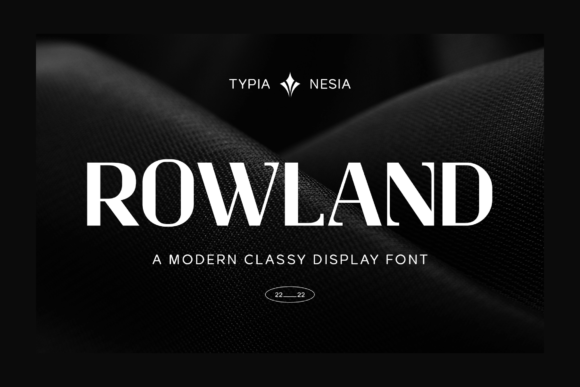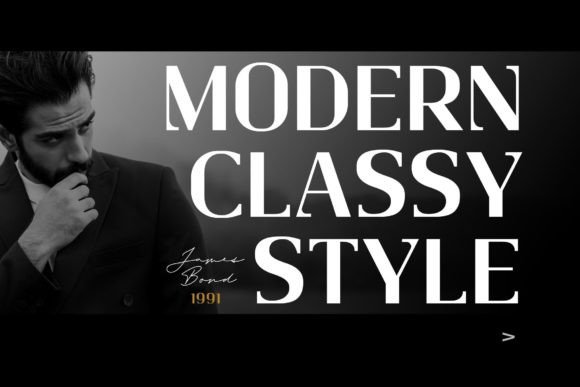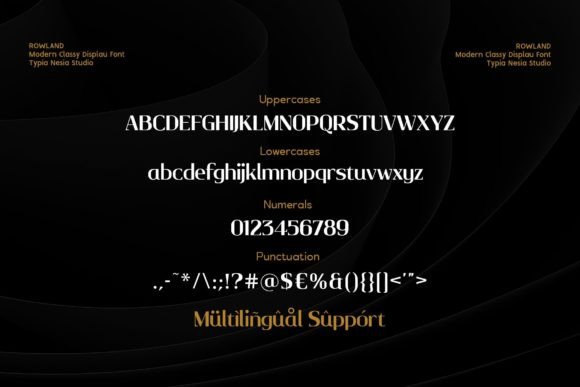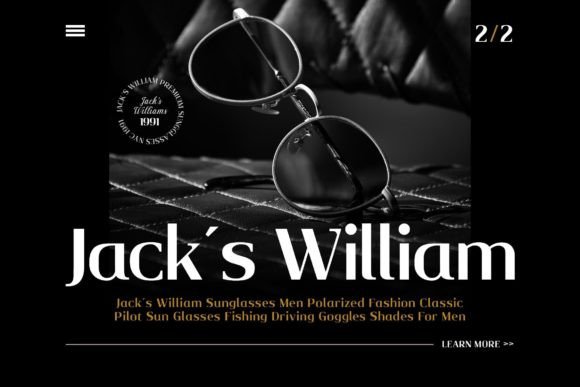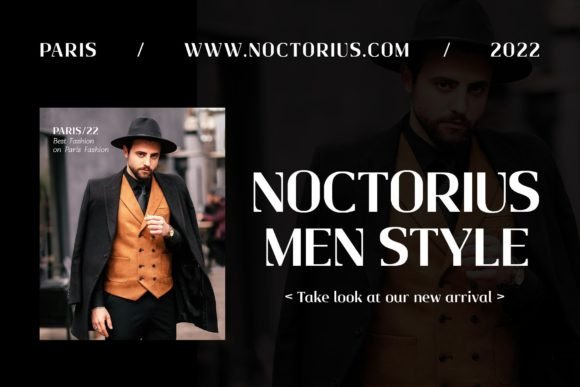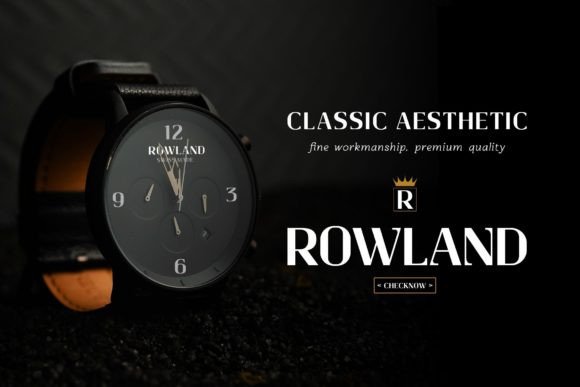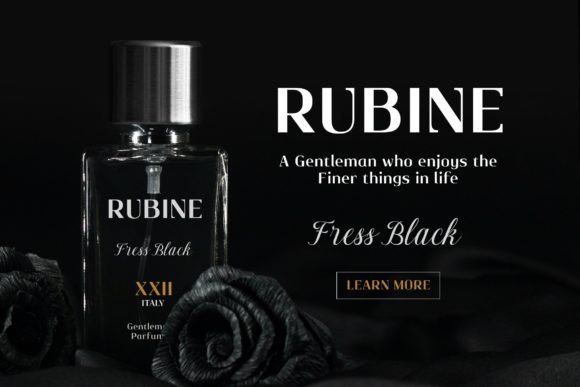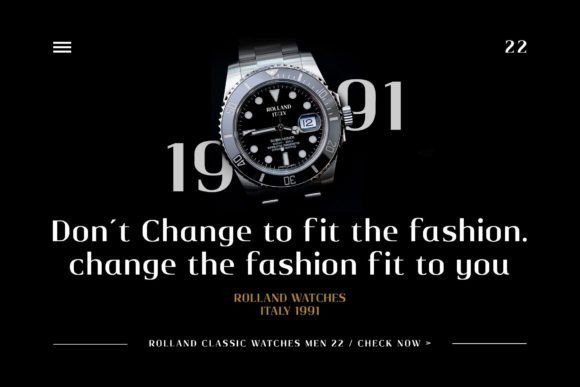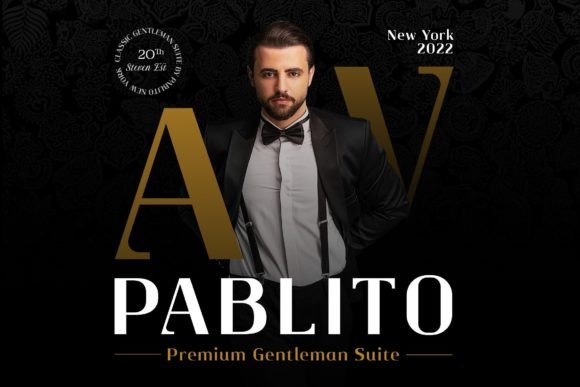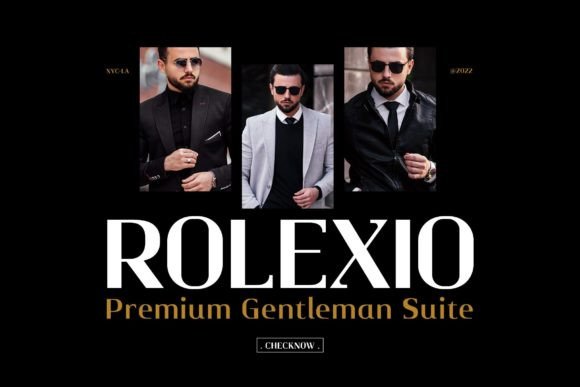
Rowland
Rowland: A Modern Masculine Classy Slab Serif Font
Rowland is a modern, masculine, and classy slab serif font perfect for logo branding. This versatile typeface is suitable for a wide range of design needs, from modern advertising to vintage-inspired projects.
Key Features of Rowland
• Modern Slab Serif Design: Offers a contemporary look with classic slab serif elements.
• Masculine Aesthetic: Brings a strong and bold character to designs.
• Classy Appearance: Adds a touch of sophistication to various projects.
• Versatile Application: Suitable for both digital and print media across different industries.
Ideal Uses for Rowland
Rowland’s unique characteristics make it particularly well-suited for:
When incorporating Rowland into your designs, consider these tips:
• Use for headlines or short blocks of text to showcase its masculine and classy style.
• Experiment with different sizes to highlight the font’s modern slab serif features.
• Utilize its versatility to create designs that span various industries and styles.
Rowland is an excellent choice for designers looking to add a modern, masculine, and classy slab serif font to their typographic toolkit. Its ability to adapt to various design contexts makes it stand out in the world of typography. Whether you’re working on logo branding, creating advertising campaigns, or developing content for websites and blogs, Rowland offers the perfect blend of contemporary style and classic charm.
Furthermore, Rowland’s unique design allows it to shine in various contexts where a strong and sophisticated look is desired. From vintage-inspired projects to modern digital applications, this font can elevate your designs with its distinctive style. Its masculine yet refined appearance works particularly well in projects that aim to convey strength, reliability, and elegance.
In conclusion, Rowland is a font that truly captures the essence of modern masculinity with a touch of class. Its versatility across different applications showcases its adaptability to various creative needs. For those looking to add a bold and sophisticated touch to their work, Rowland can enhance themed creations with its distinctive style. It’s the perfect choice for designers seeking to make a strong, stylish impact across a wide range of creative projects.